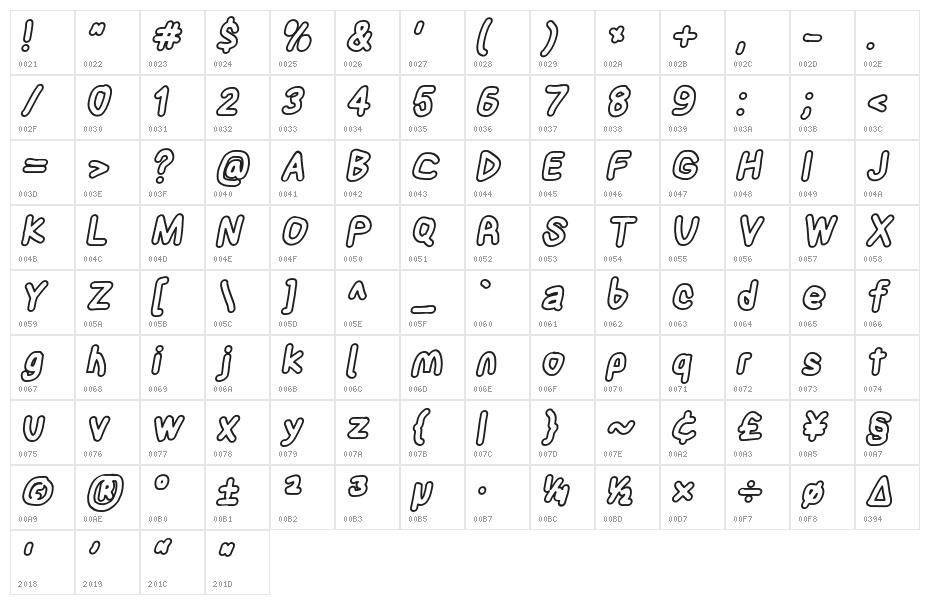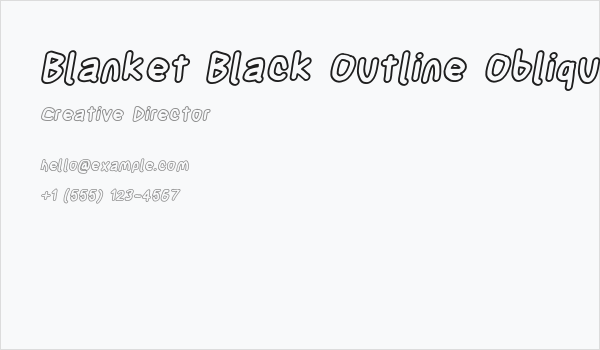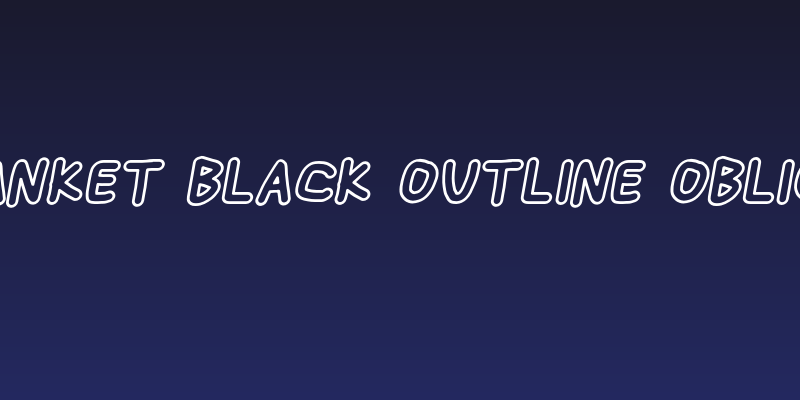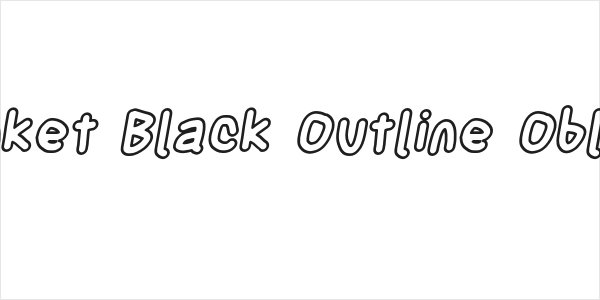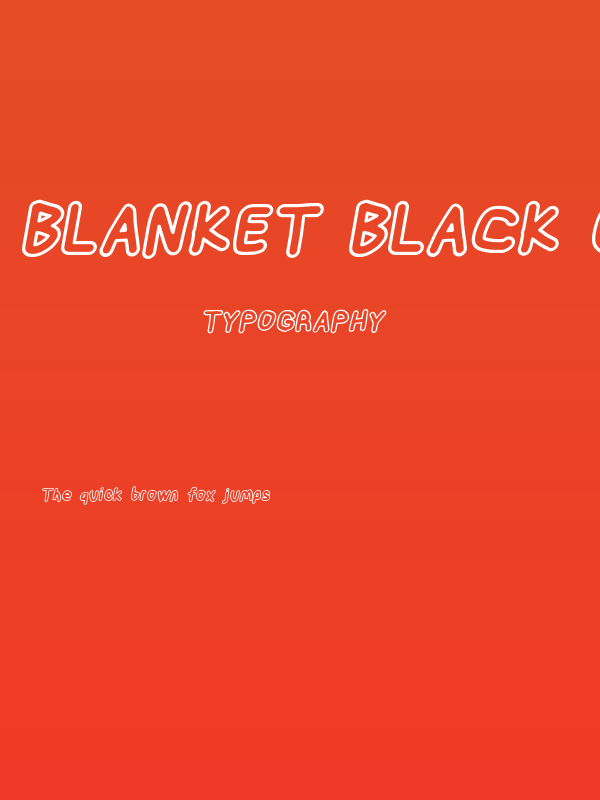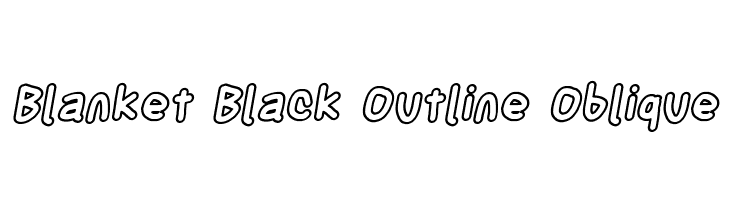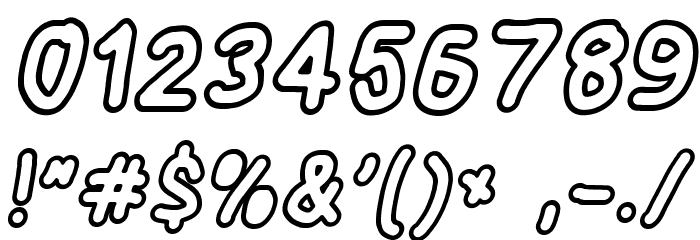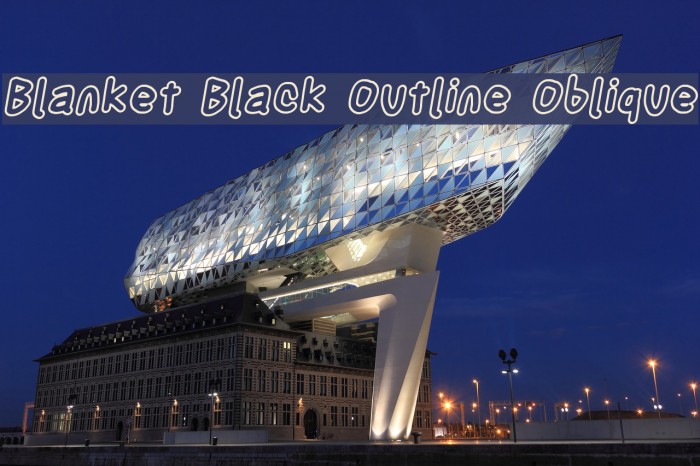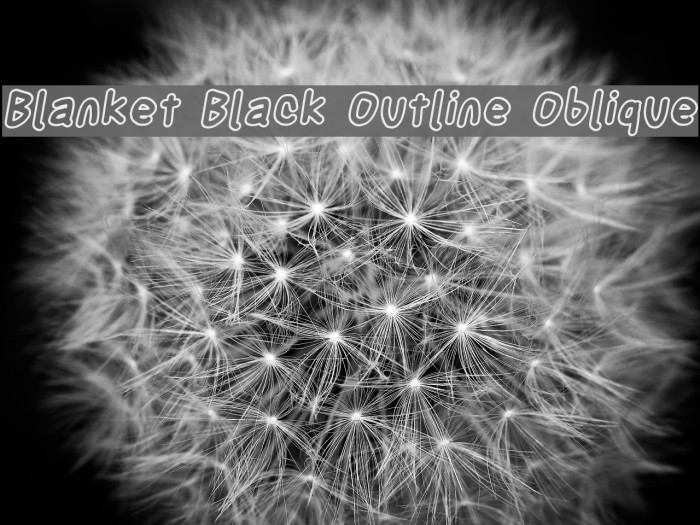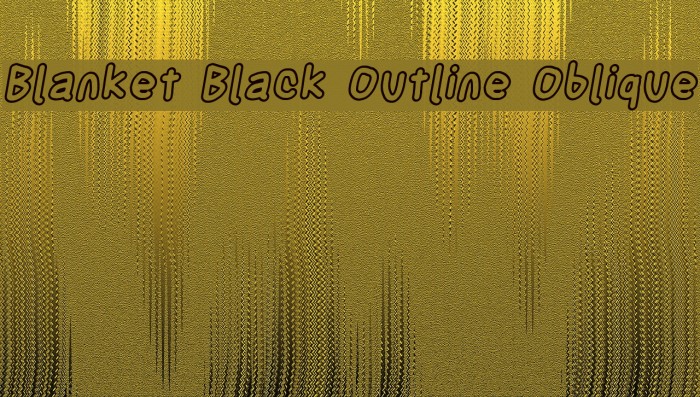
Blanket Black Outline Oblique Font
Blanket Black Outline Oblique Description
This playful and bold font features an outlined style with a slight oblique slant, giving it a dynamic and energetic appearance. The characters are rounded and smooth, with a consistent thickness throughout the strokes, creating a uniform look. The uppercase and lowercase letters maintain a cohesive style, while the numerals and special characters are designed to match the overall aesthetic. This font's outlined nature makes it stand out, perfect for designs that require a touch of fun and creativity.
| Overall Style | Playful, Energetic |
| Proposed Projects | Ideal for children's book covers, playful posters, creative branding, and eye-catching headlines. |